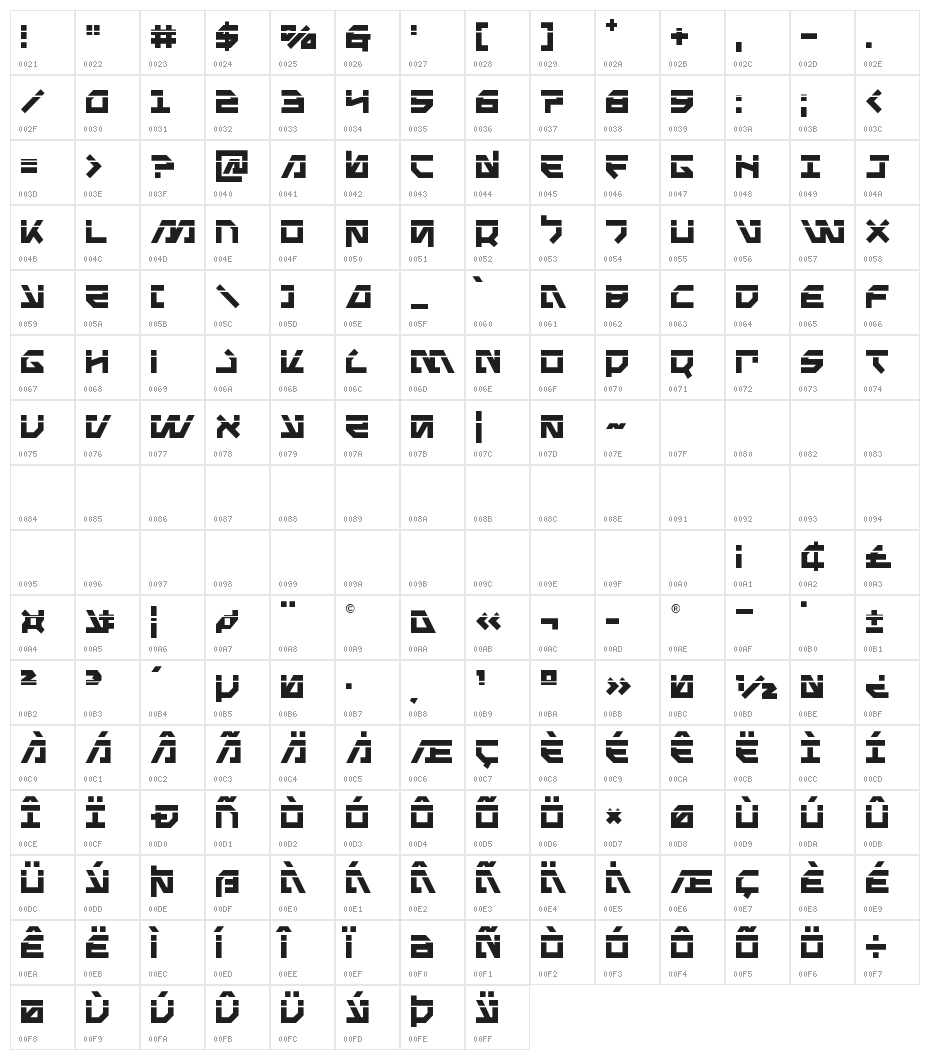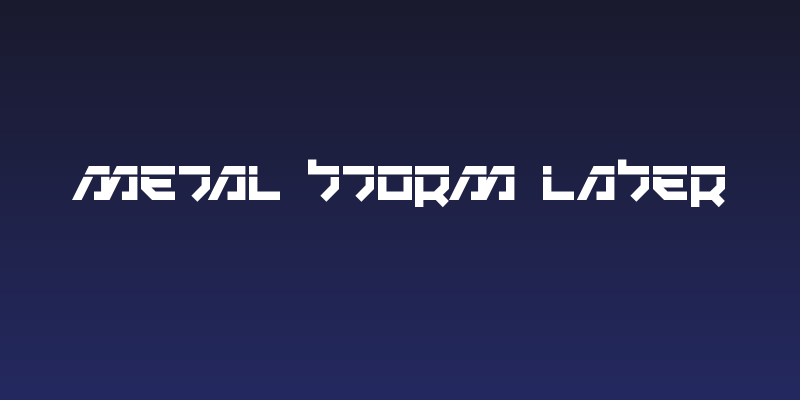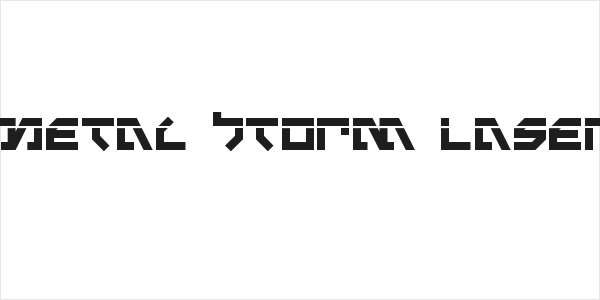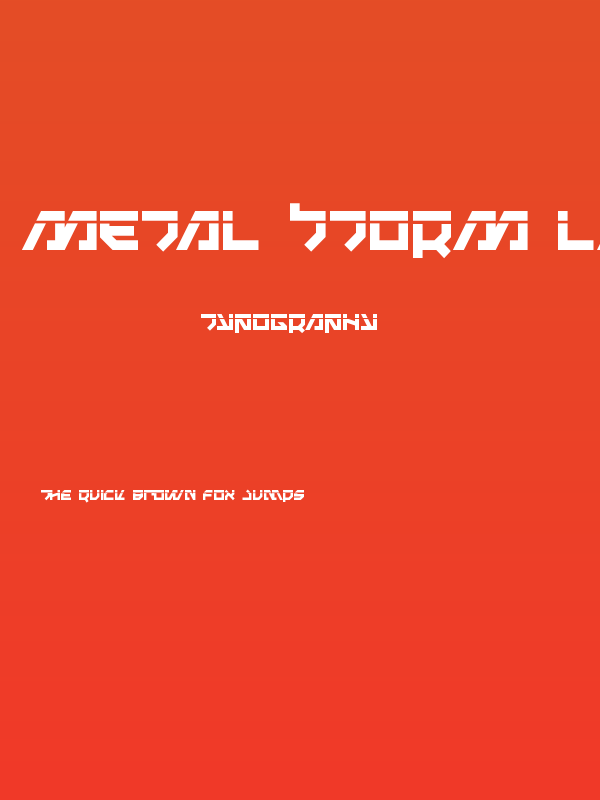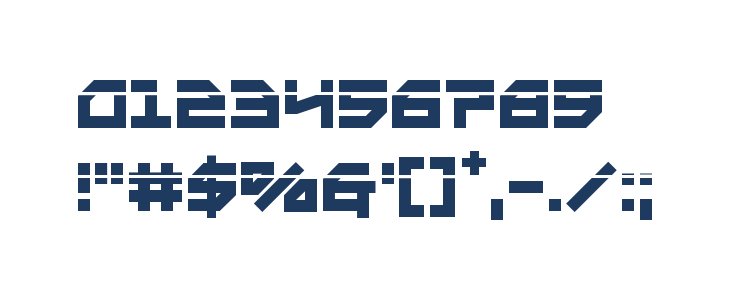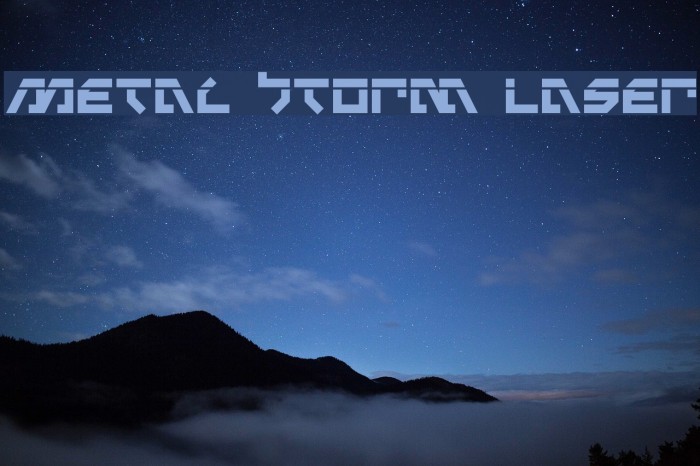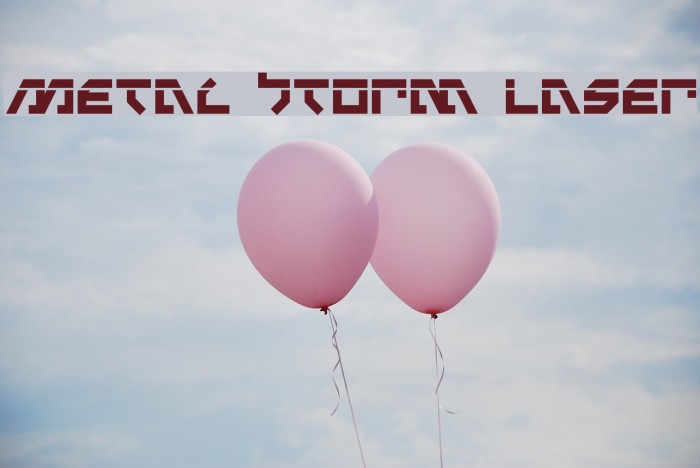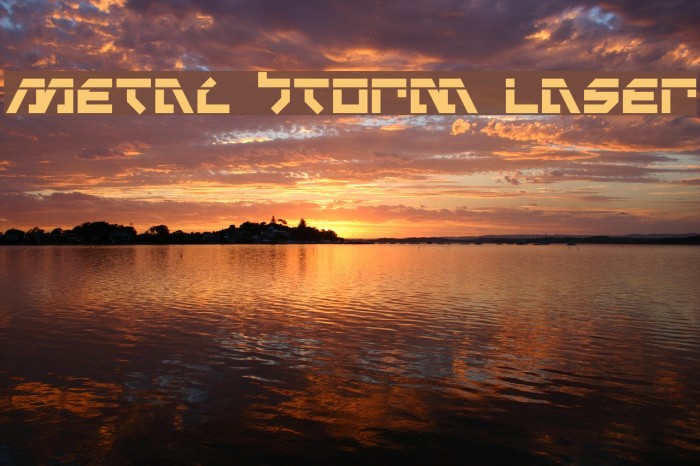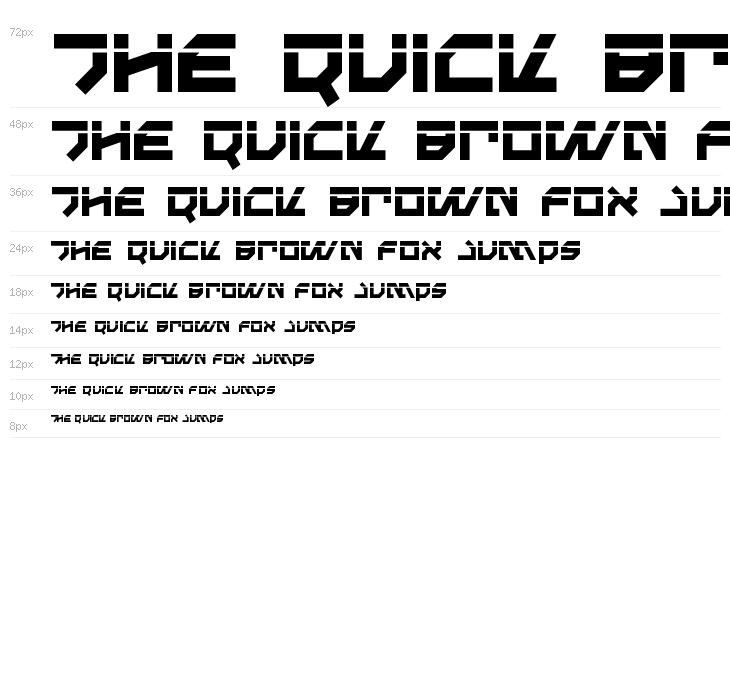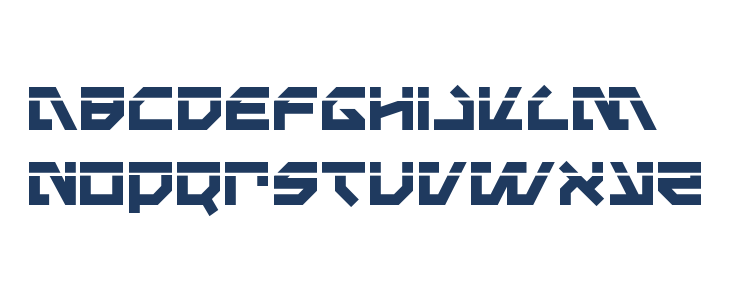
Metal Storm Laser Font
Metal Storm Laser Description
This font features a futuristic and angular design, characterized by sharp edges and geometric shapes. The letters are bold and striking, with a consistent thickness throughout, giving it a strong and impactful appearance. The style is reminiscent of digital or sci-fi themes, making it ideal for projects that require a modern and edgy look. The characters are tightly spaced, enhancing the compact and cohesive feel of the font. Its unique design makes it stand out, perfect for attention-grabbing headlines or logos.
| Proposed Projects | Ideal for sci-fi movie posters, video game titles, technology branding, and futuristic-themed events. |